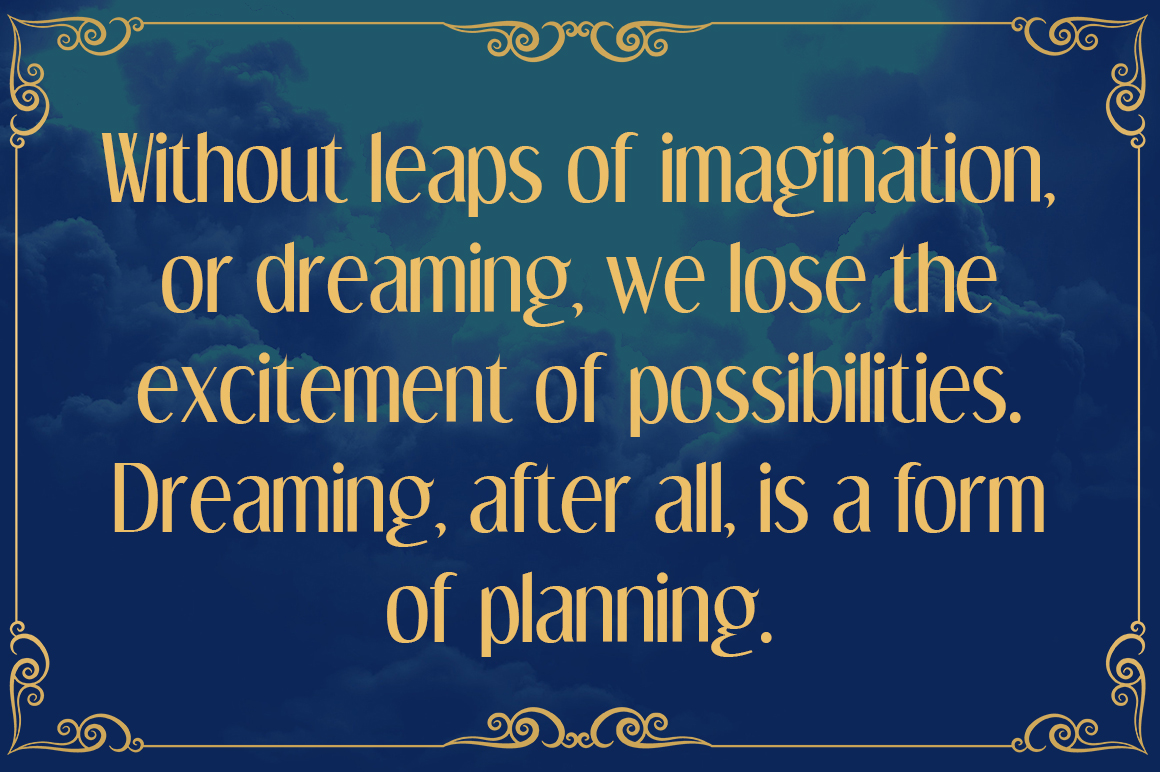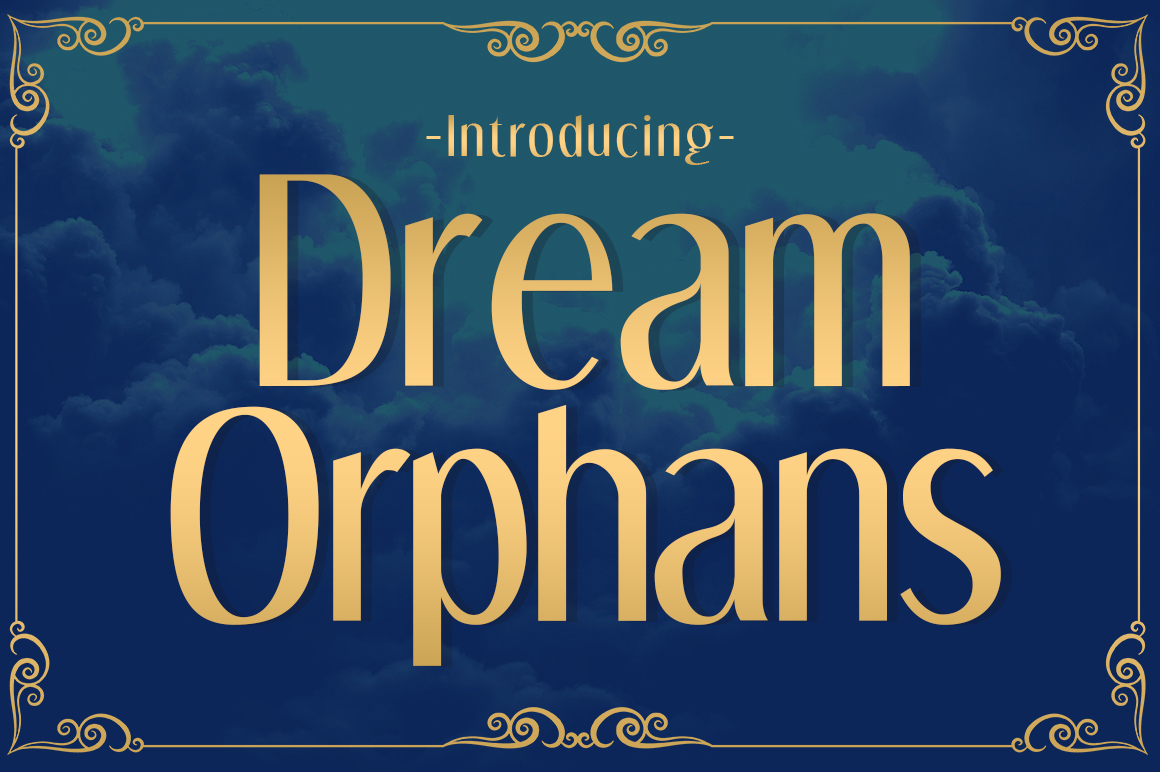
HomePersonal Use FreeDream Orphans Personal Use Free Dream Orphans FacebookXPinterestWhatsApp 1 of 2 About Dream Orphans Font Dream Orphans is a condensed, humanist sans serif display font. The quaggy curves are charming, as this font adds a classic and literary appeal to designs. DOWNLOAD ON CREATIVE FABRICAThis font is sold and delivered by Creative Fabrica. Font Canyon may earn a commission if you buy through this link. People also explored Belligart Font Queendom Font Swash Zillong Font Eviden Font Whatever Font Le Havre Rounded Brilliant Font Baby Frog Font Triumphant Font 445 0 TagsDream Orphans Font Previous articleEthnocentricNext articleStereofidelic LEAVE A REPLY Cancel reply Comment: Please enter your comment! Name:* Please enter your name here Email:* You have entered an incorrect email address! Please enter your email address here Website: Save my name, email, and website in this browser for the next time I comment. Personal Use Free Butter Belly Personal Use Free Read more about this font Braindly Personal Use Free Read more about this font Good Times Personal Use Free Read more about this font Special Day Personal Use Free Read more about this font BLOG Free Fonts Risk: Why Free Fonts Can Be Dangerous for Designers Free Fonts Risk: Why Free Fonts Can Be Dangerous for Designers Using free fonts is a common practice in web and graphic design. However, the... Transform Your Website: Elevate Your Typography with 7 Best Web Font Generators Free vs Paid Fonts: Why Investing in Premium Fonts Is Worth It Top 10 Handwritten Fonts That Elevate Your Designs